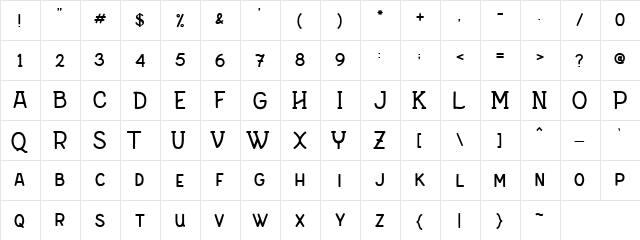
Merfolk Typeface Demo Regular Font Preview
Merfolk Typeface Demo Regular
Merfolk Typeface Demo Regular Font Details
| Foundry | Tacikworks |
| Designer | Ivan Yahya |
Design Context for Merfolk Typeface Demo Typeface
Merfolk Typeface Demo is a composed and adaptable typeface that performs quietly and consistently across a wide range of design contexts.